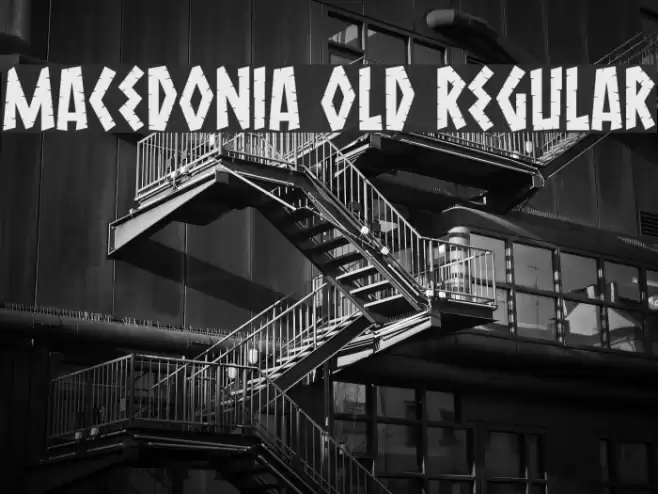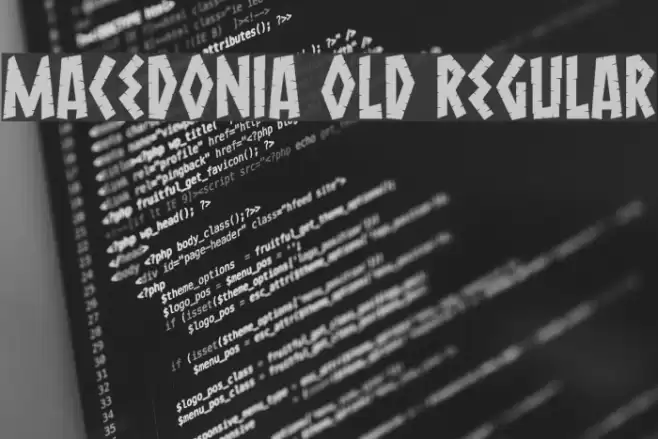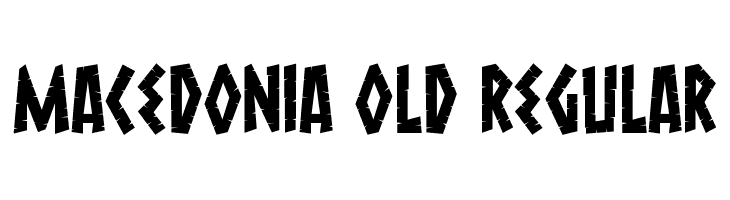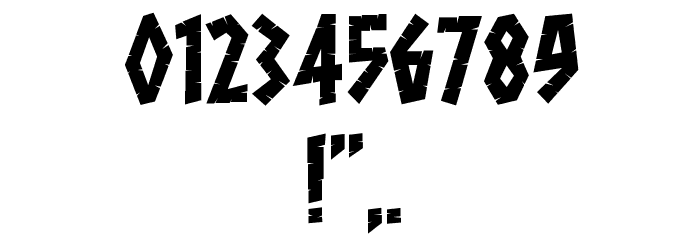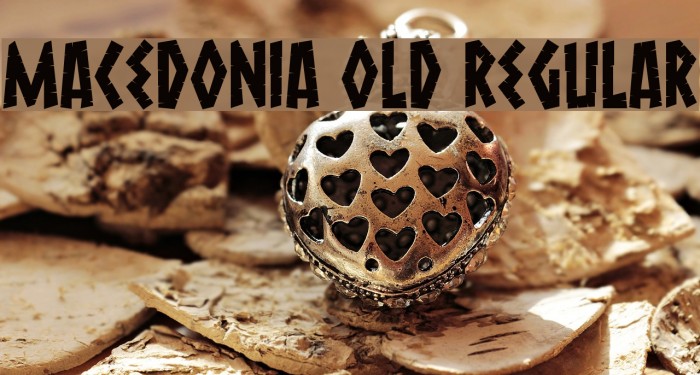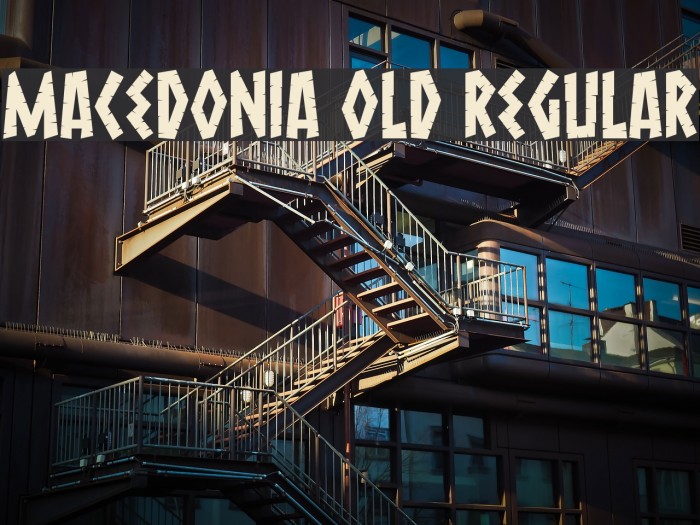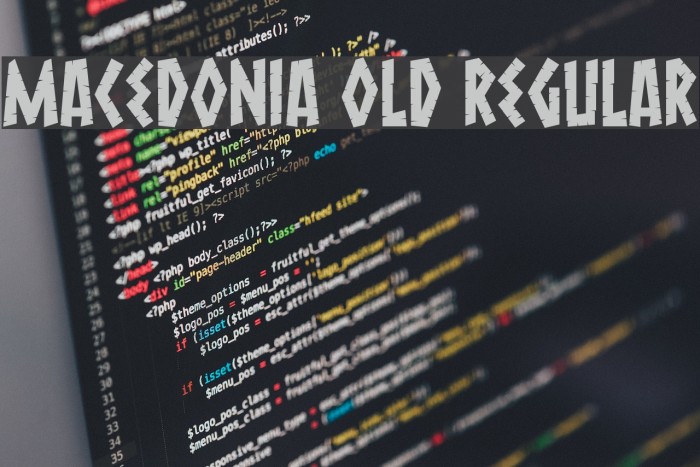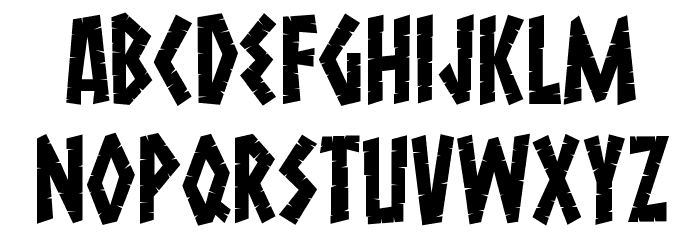
Macedonia Old Regular Font
Macedonia Old Regular Description
This font features a bold and dynamic style with a distinct geometric and angular design. The characters are constructed with sharp edges and irregular cuts, giving them a rugged and edgy appearance. The uppercase and lowercase letters maintain a consistent style, creating a cohesive look across the alphabet. The numbers and special characters follow the same design principles, ensuring uniformity. This font's unique style makes it stand out, offering a striking visual impact.
A bold, angular font with a geometric and edgy design from Uncategorized fonts.